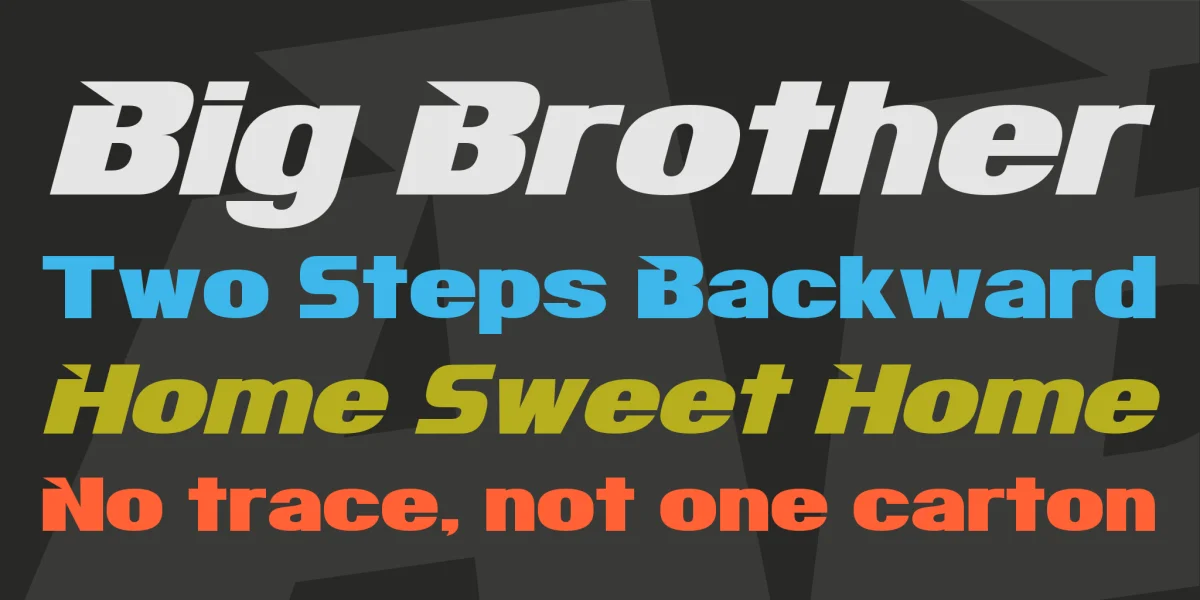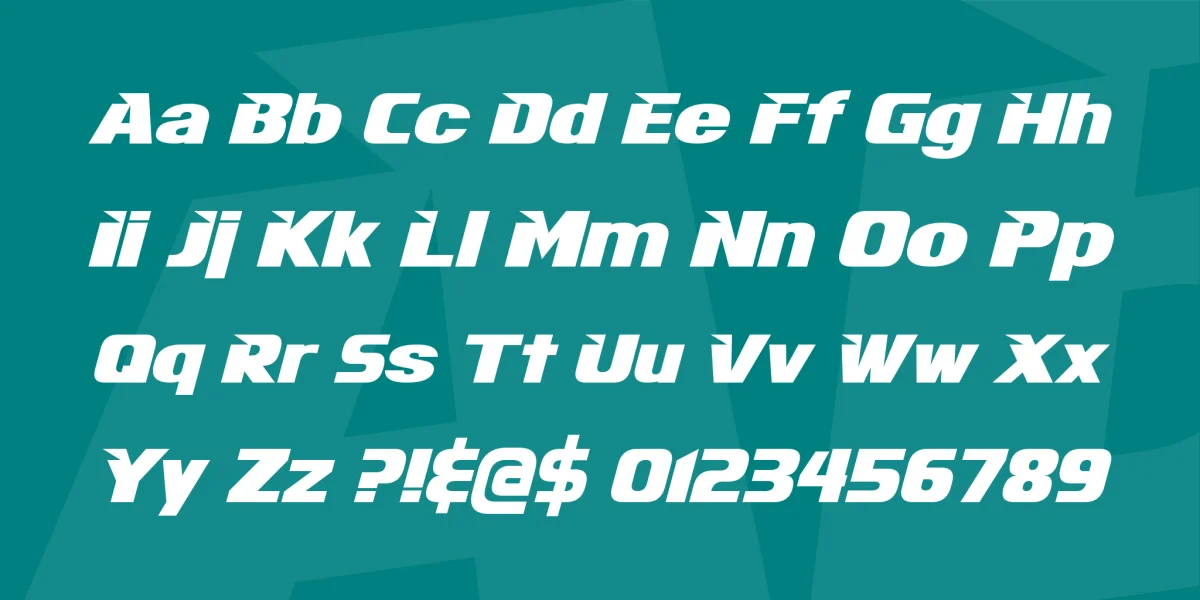
Thanks for downloading "Infinite Justice" from Insanitype! Font Design. This font is based on the ACDelco font and dedicated to the thousands who losts their lives in the attacks on the World Trade Center in New York and the Pentagon. This is the cleanest font I've done yet, and it works very well at small sizes (it's readable down to at least 7 points anti-aliasing turned off and somewhat readable another 2 points below that. With anti-aliasing on, it's readable at even smaller sizes. This font is so legible that you could type a term paper in it (although it 0is a little bold for a term paper...) As always, please let me know if you use this font or see it in use.